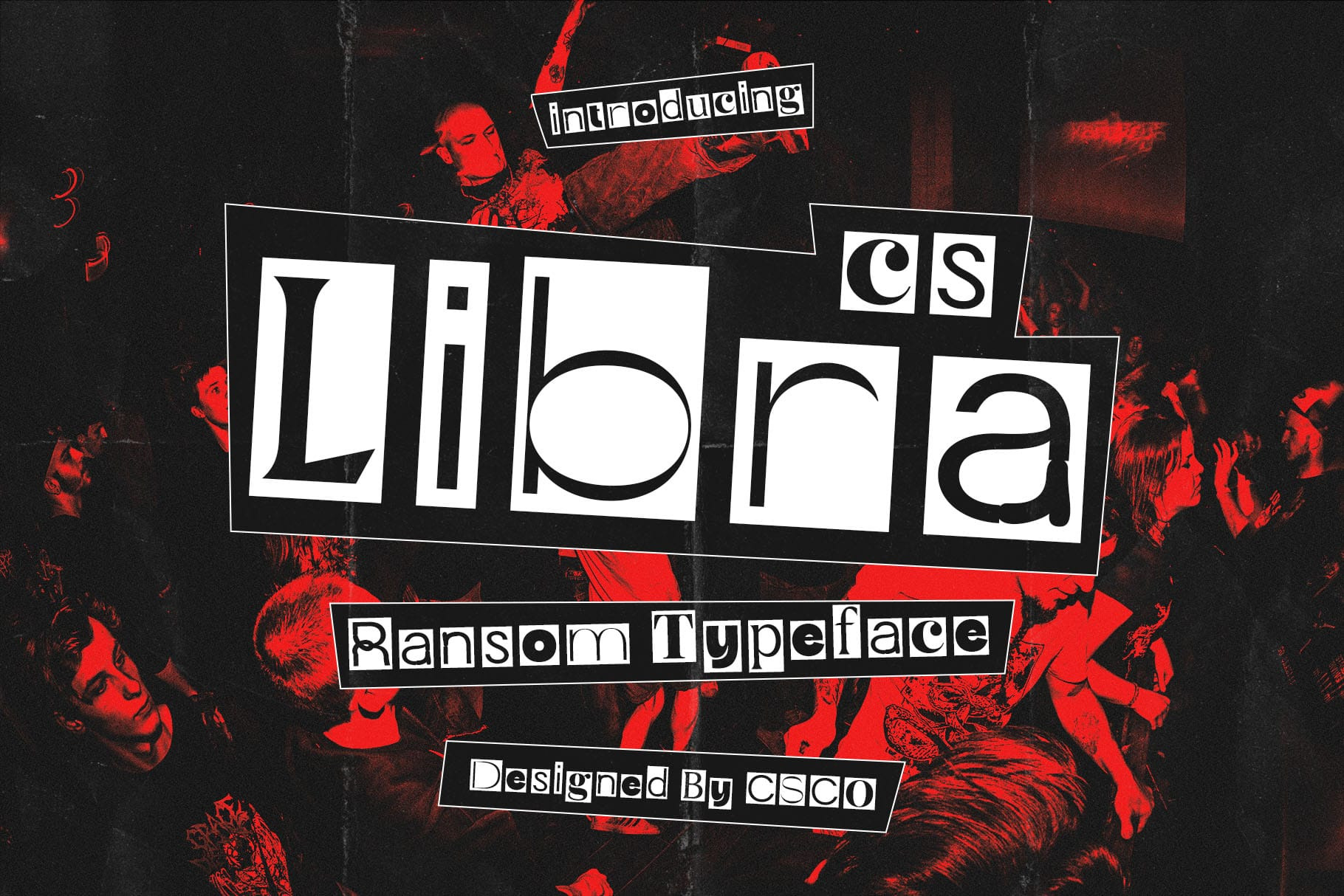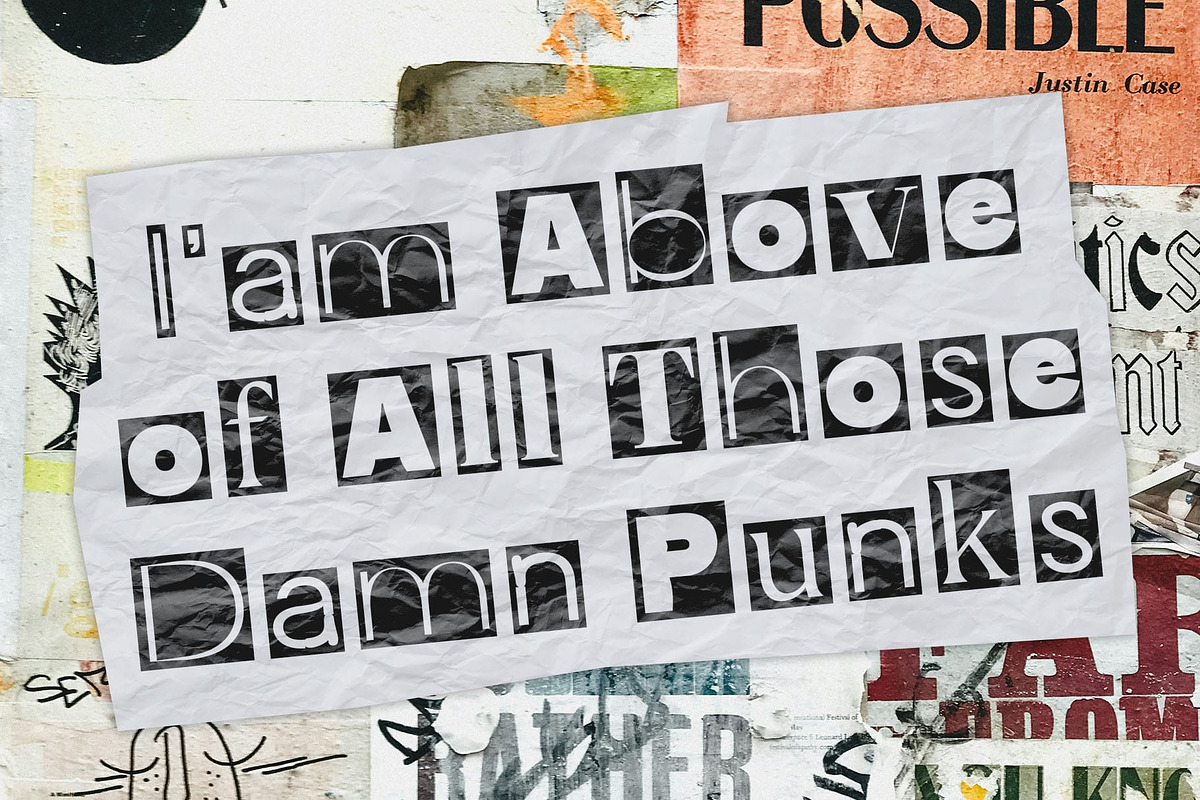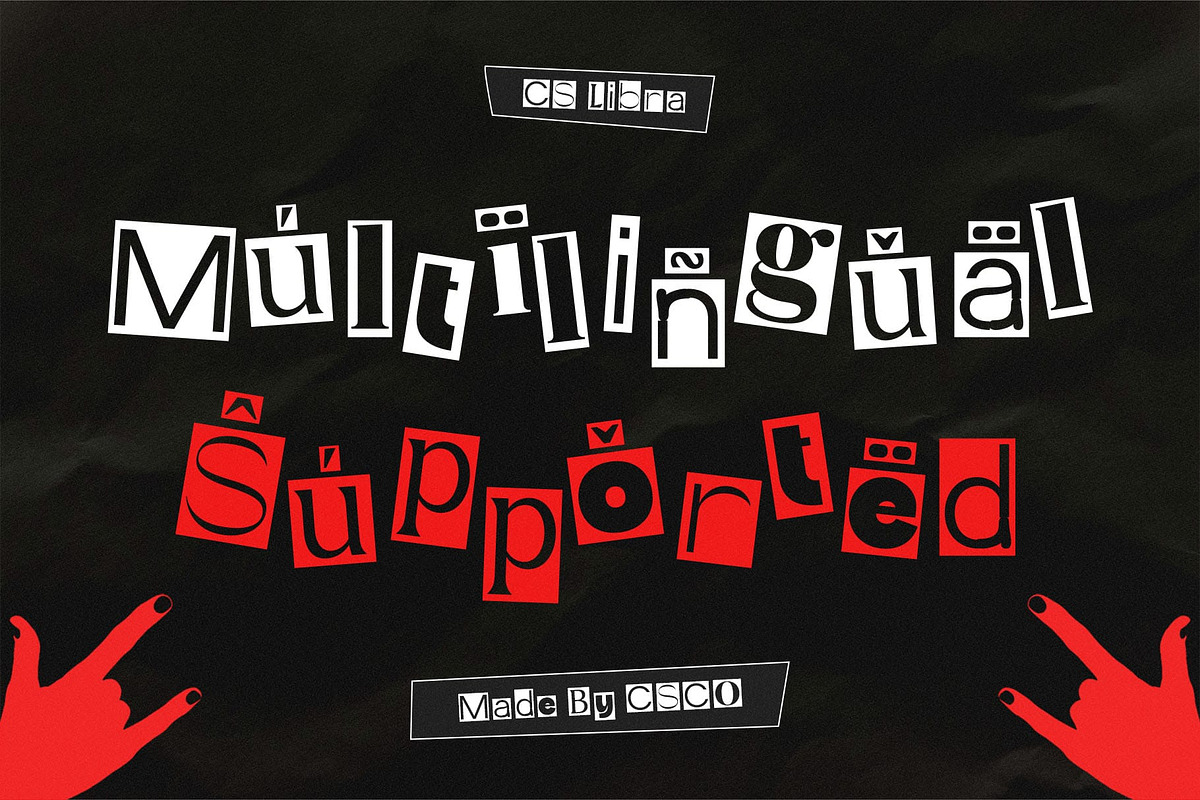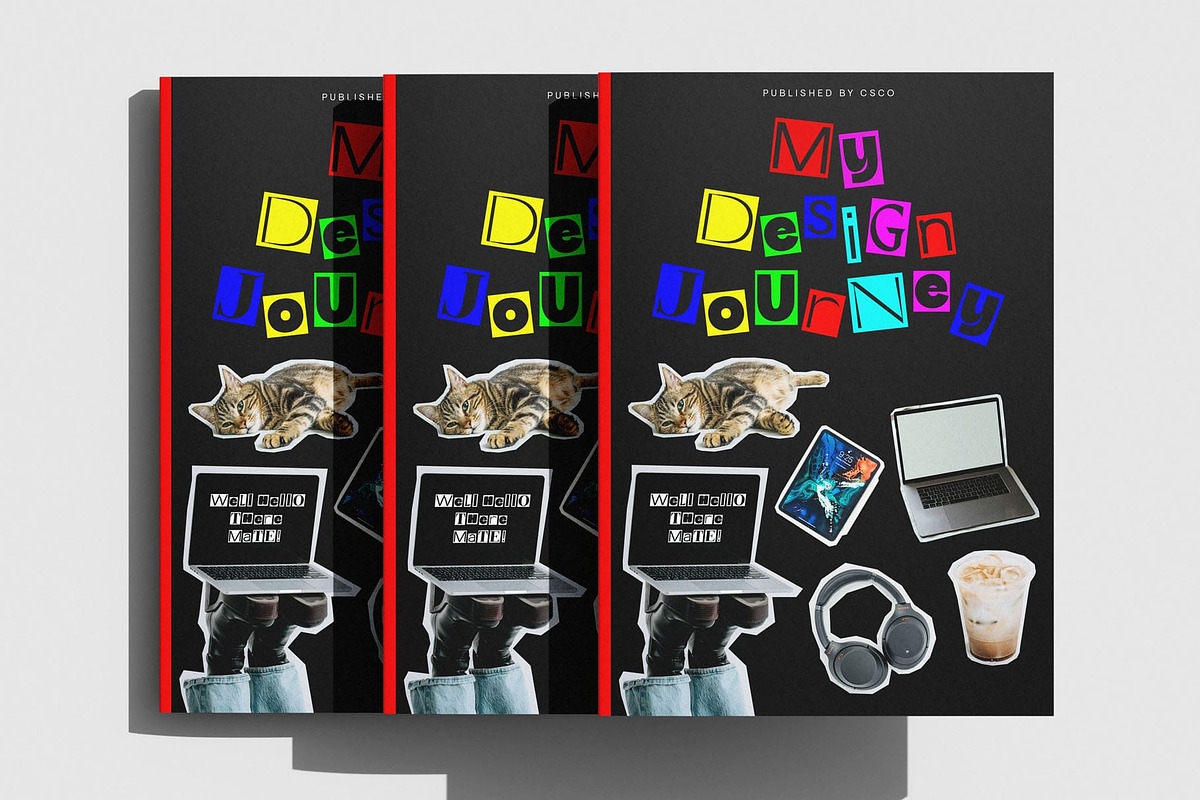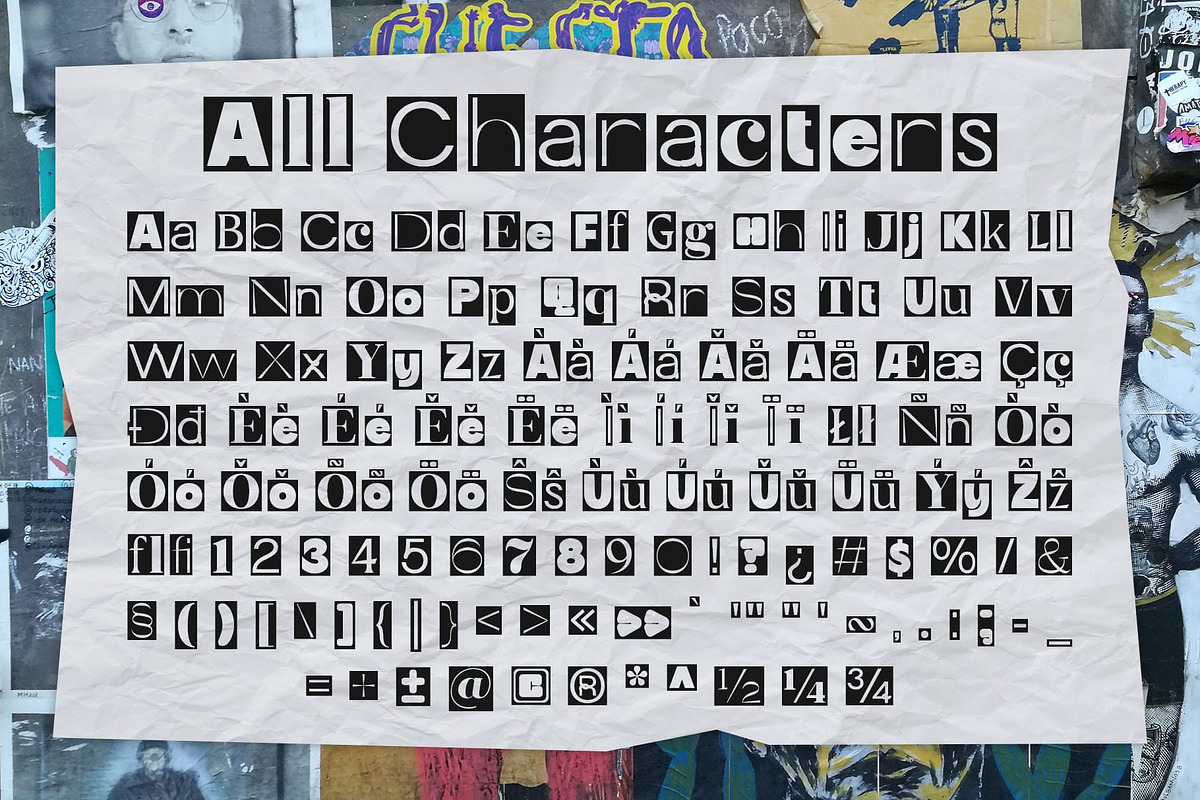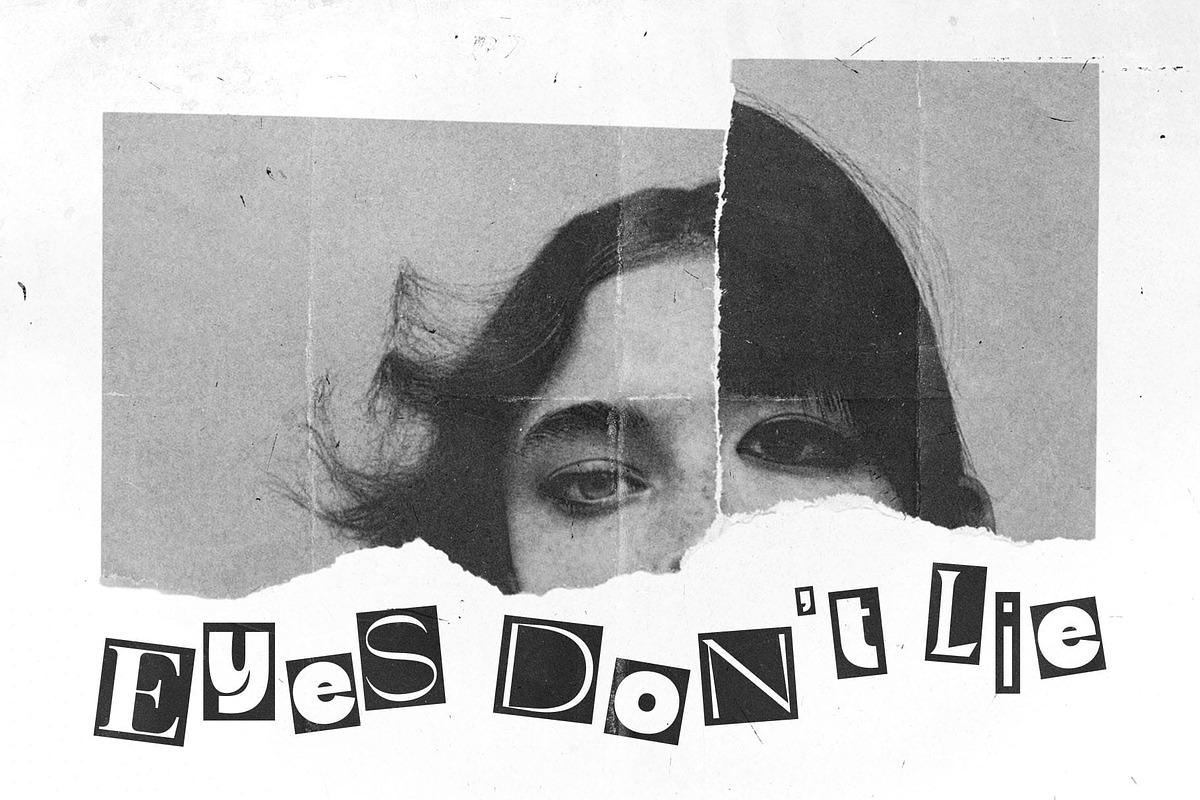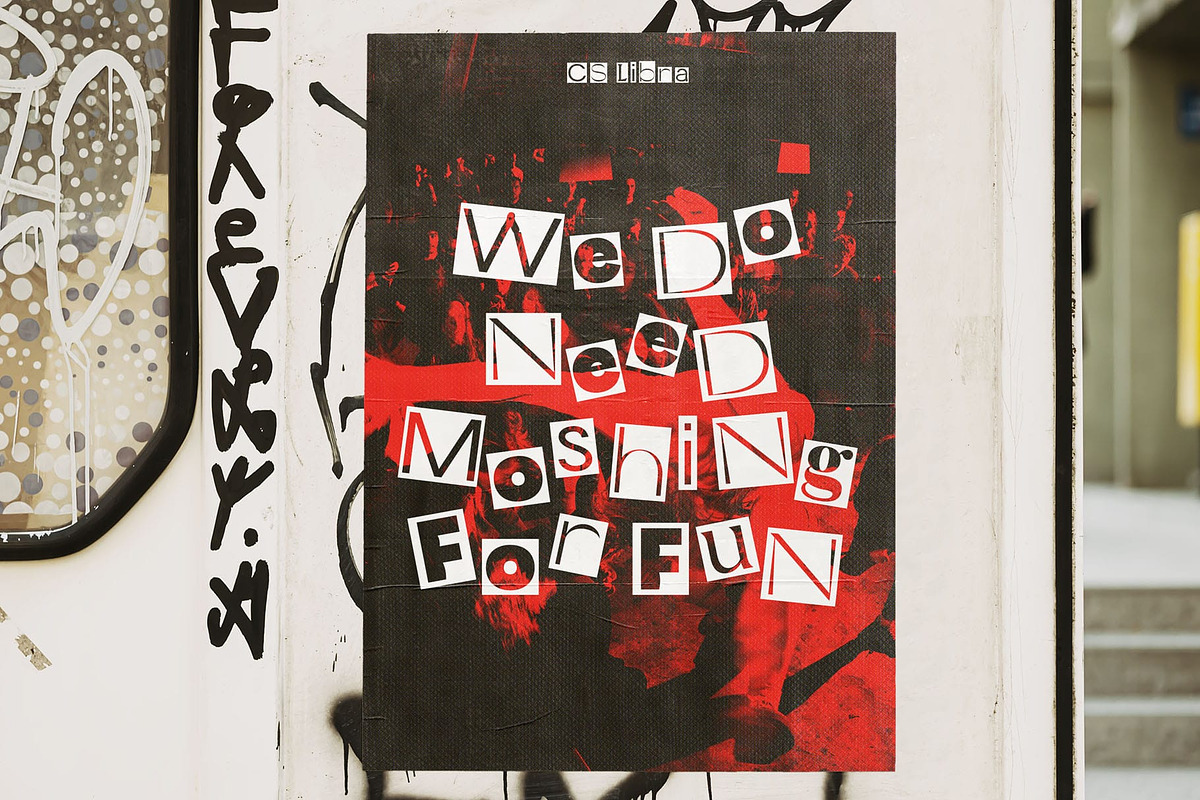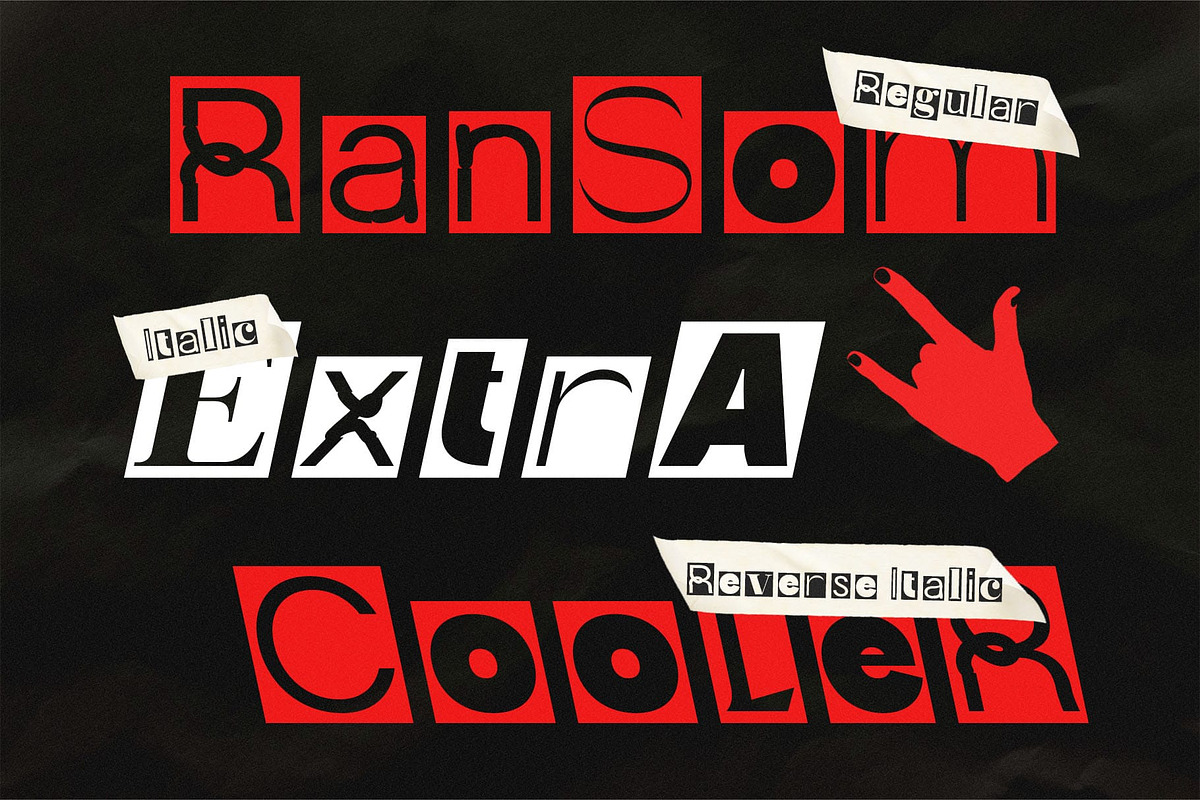
CS Libra – Collage Font
CS Libra – Collage Font: A Bold & Experimental Typeface
Funky, Randomly Arranged Design CS Libra is a display font that embraces the collage or ransom style, featuring unique and experimental character shapes. The letterforms appear cut or arranged randomly, creating a dynamic and eclectic look. This design element allows for a quirky and spontaneous feel, adding an unexpected twist to any project. Its irregularity and creativity make it the perfect choice for designs aiming to express boldness, freedom of expression, and individuality.
Creative & Playful Vibe With its diverse letterforms and playful aesthetic, CS Libra brings an energy and liveliness to your designs. It exudes a relaxed, carefree vibe, perfect for projects that aim to grab attention and spark creativity. Whether you’re designing music posters, event invitations, or branding for a youthful and fun brand, this font radiates a unique personality. The collage style ensures that each design will feel fresh, engaging, and full of creative spirit.
Ideal for Expressive & Dynamic Designs CS Libra is an excellent choice for any project that aims to break the conventional mold and emphasize artistic expression. Its bold, experimental shapes are ideal for music events, streetwear branding, or any design that thrives on an unconventional approach. This font allows for complete freedom in layout and design, ensuring that your project stands out with a distinctive, playful, and energetic touch.